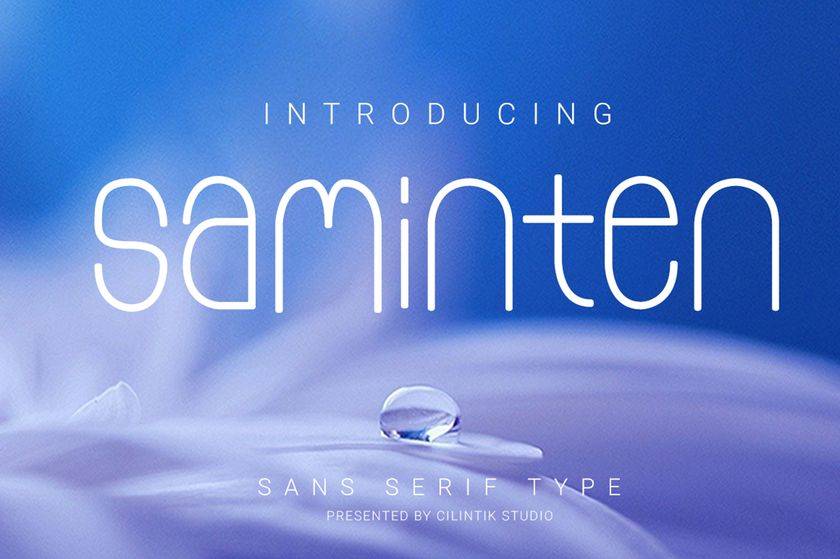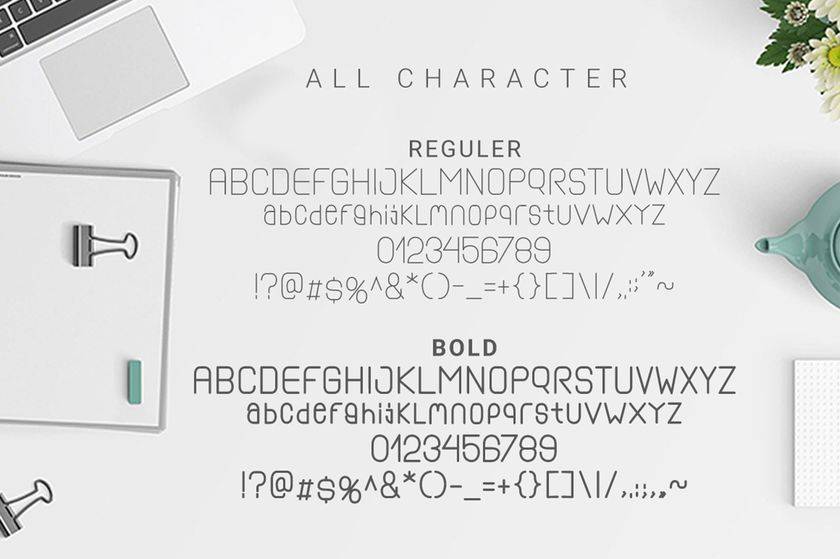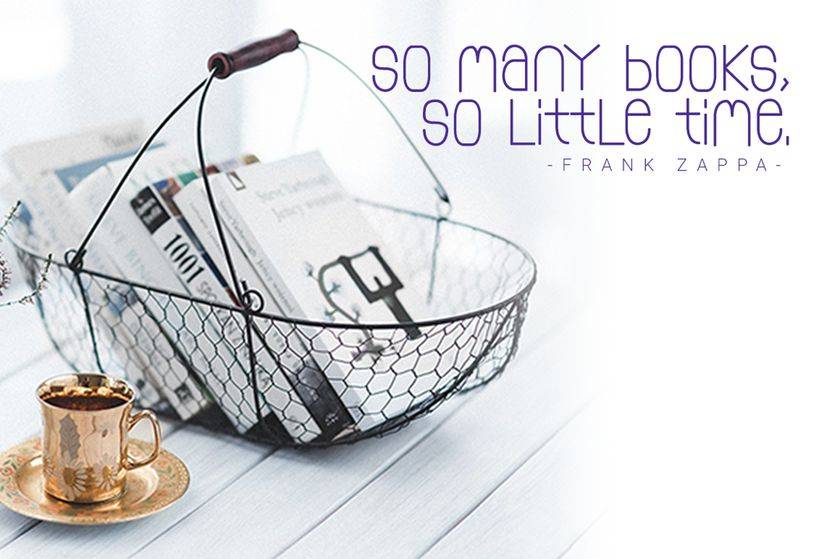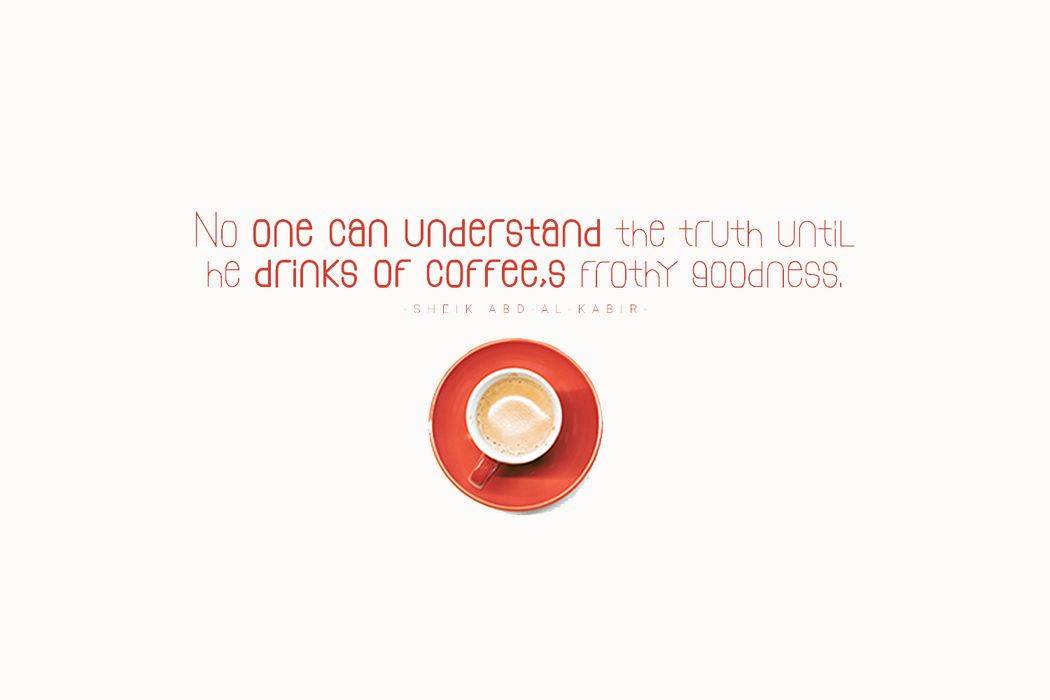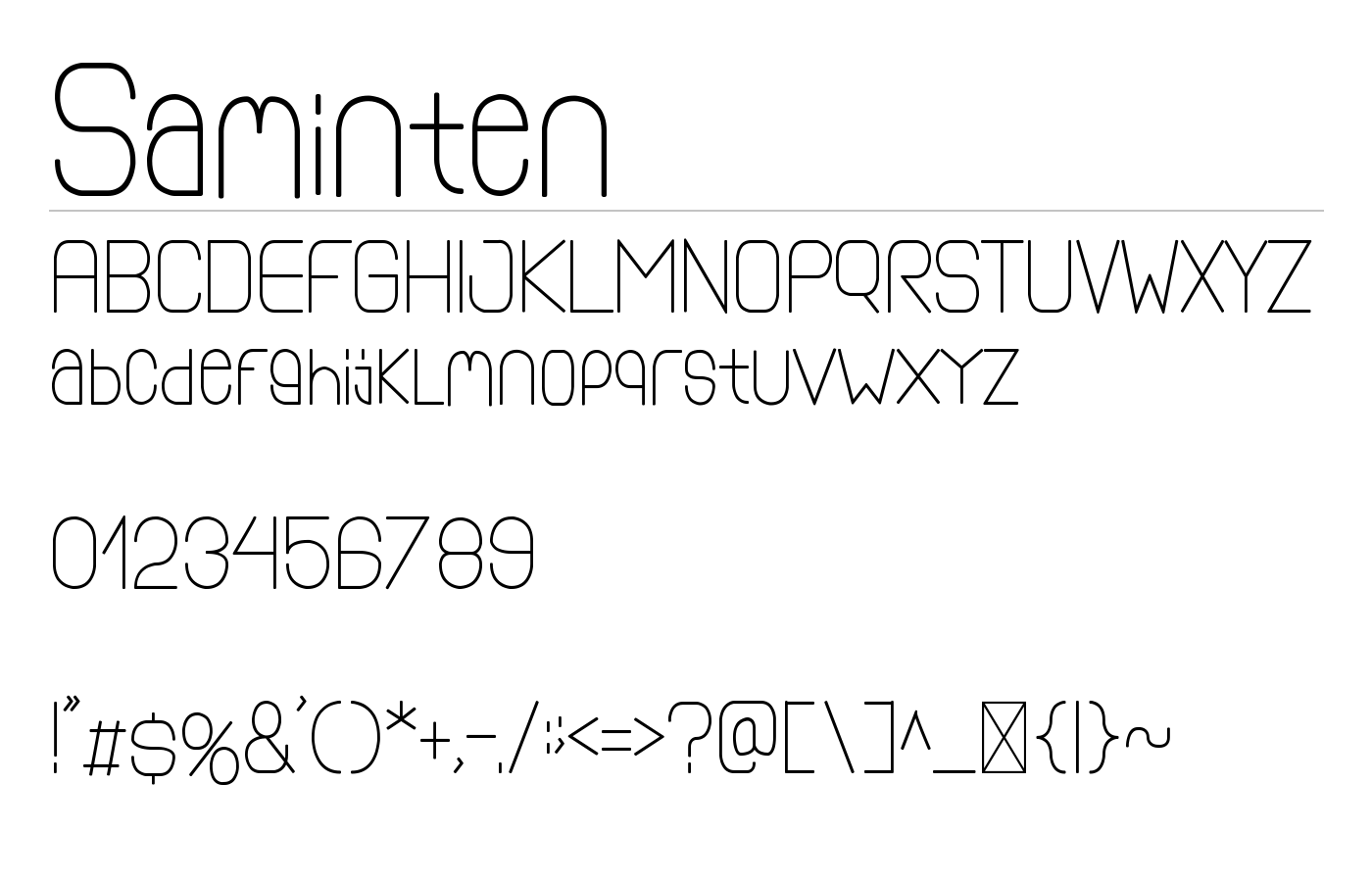
Saminten is a sleek, modern sans serif font with a thin, geometric structure that gives it a light and airy feel. Its narrow letterforms, high x-height, and clean lines make it perfect for contemporary design projects aiming for a minimalist yet distinctive look. This font works especially well for headlines, tech branding, and editorial uses where clarity and a futuristic vibe are desired.
| Font family | Saminten Font |
| Designer | Anggi Dwi Putra |